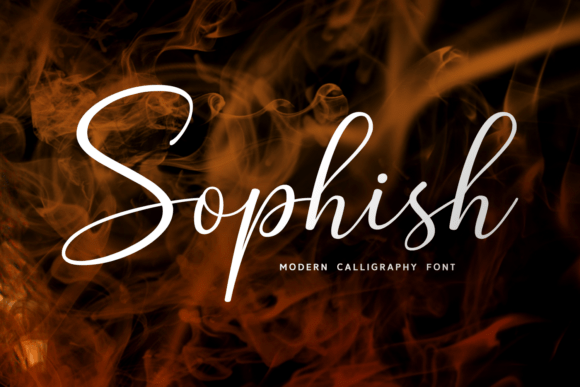
Sophish Font
Sophish is a graceful and elegant modern calligraphy font designed to bring a touch of sophistication to your designs. With smooth-flowing curves and stylish letterforms, it’s perfect for wedding invitations, branding, logos, greeting cards, quotes, and social media posts. Its refined script style blends modern flair with timeless beauty, making your designs feel polished and luxurious.